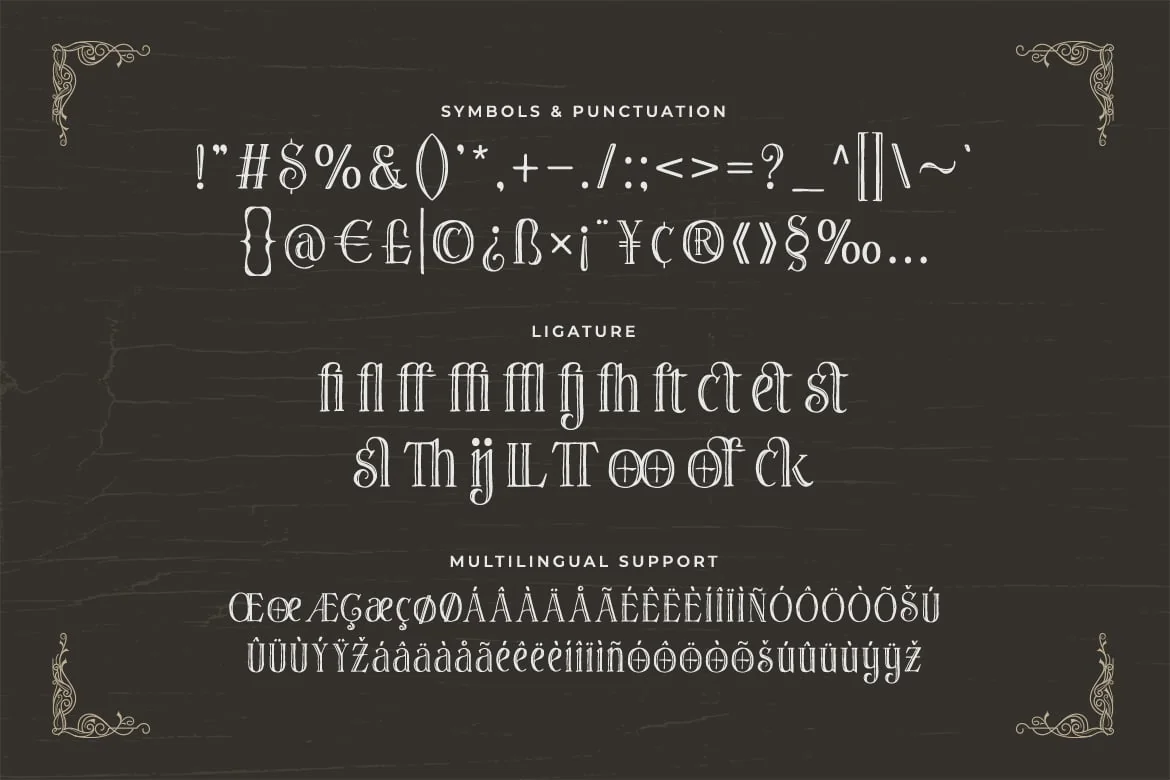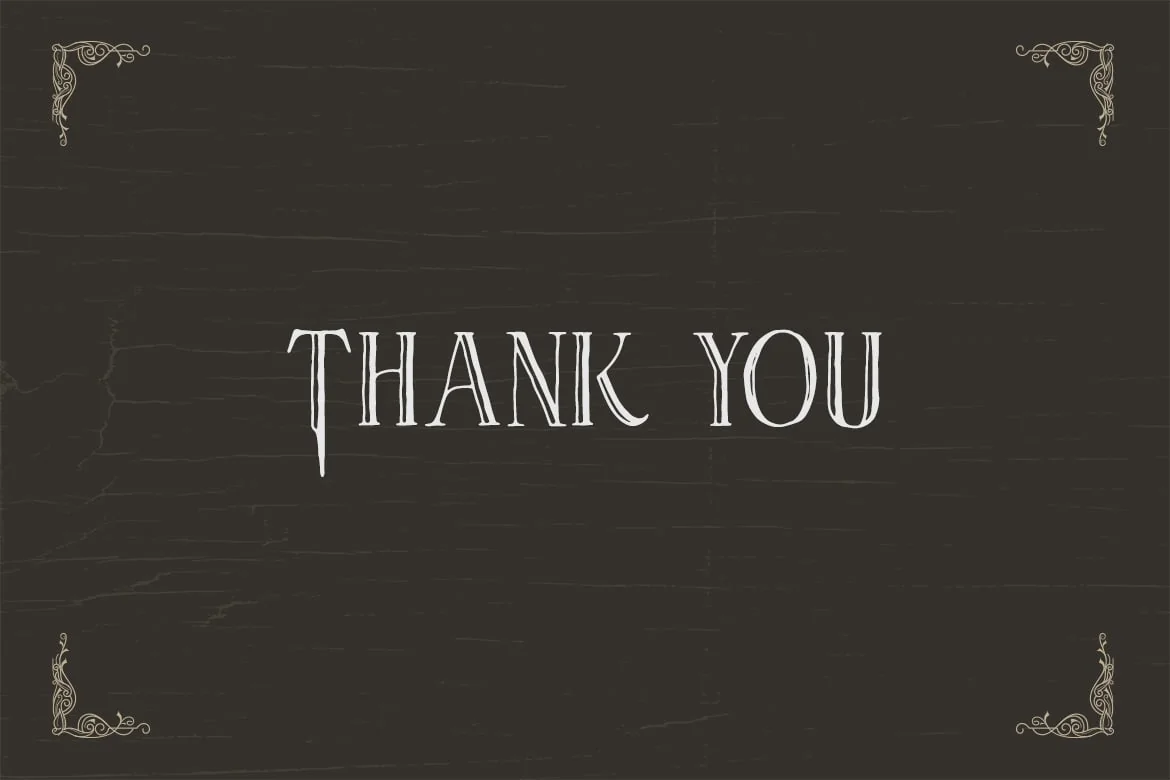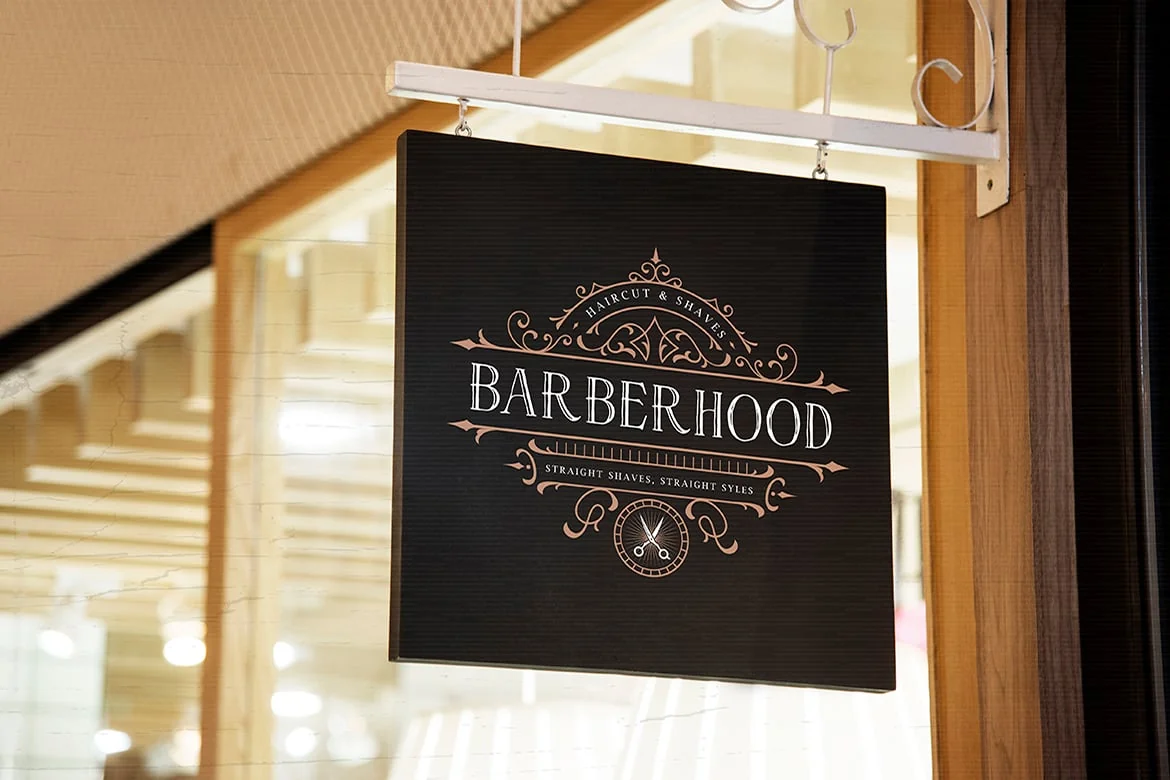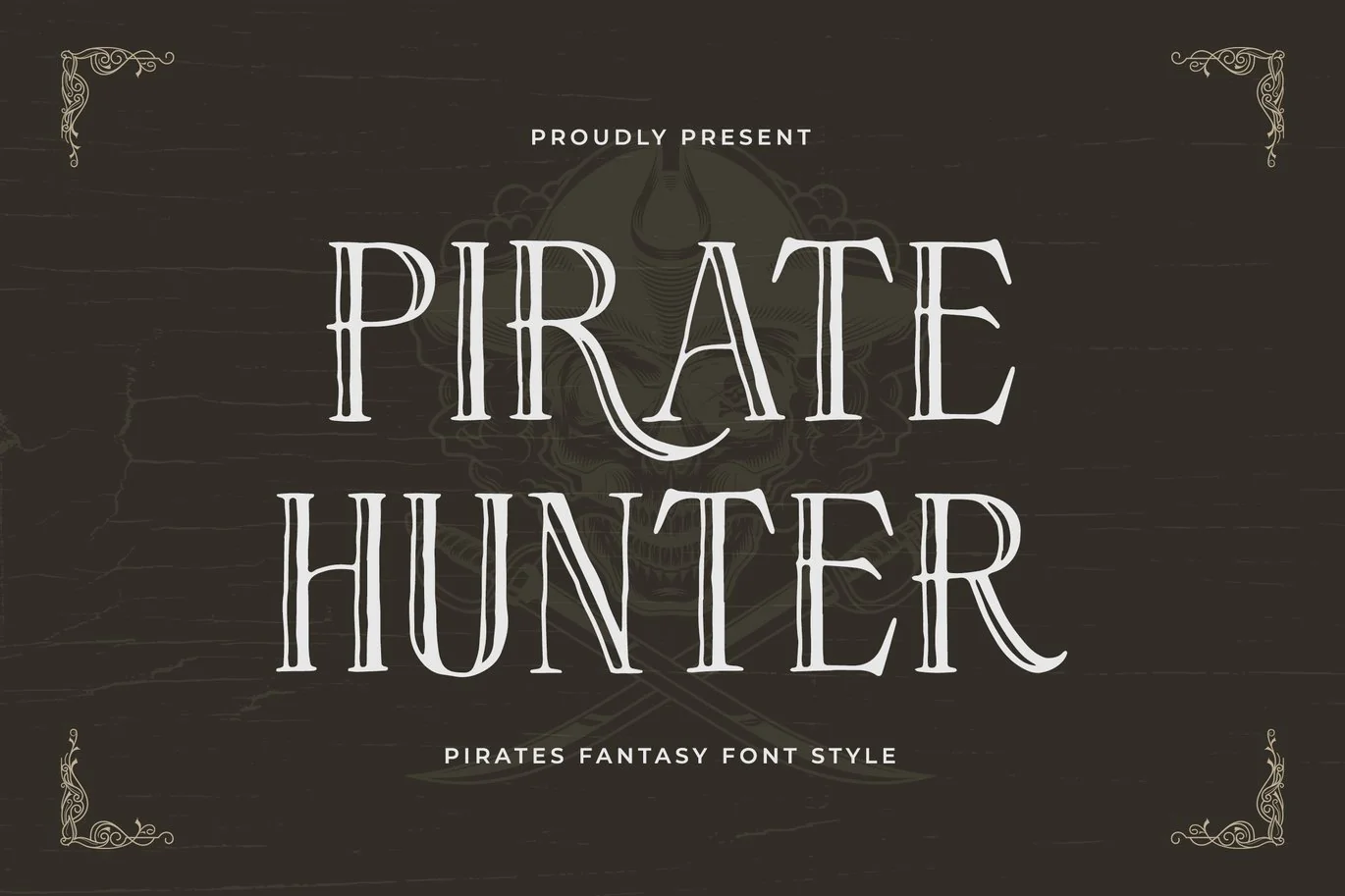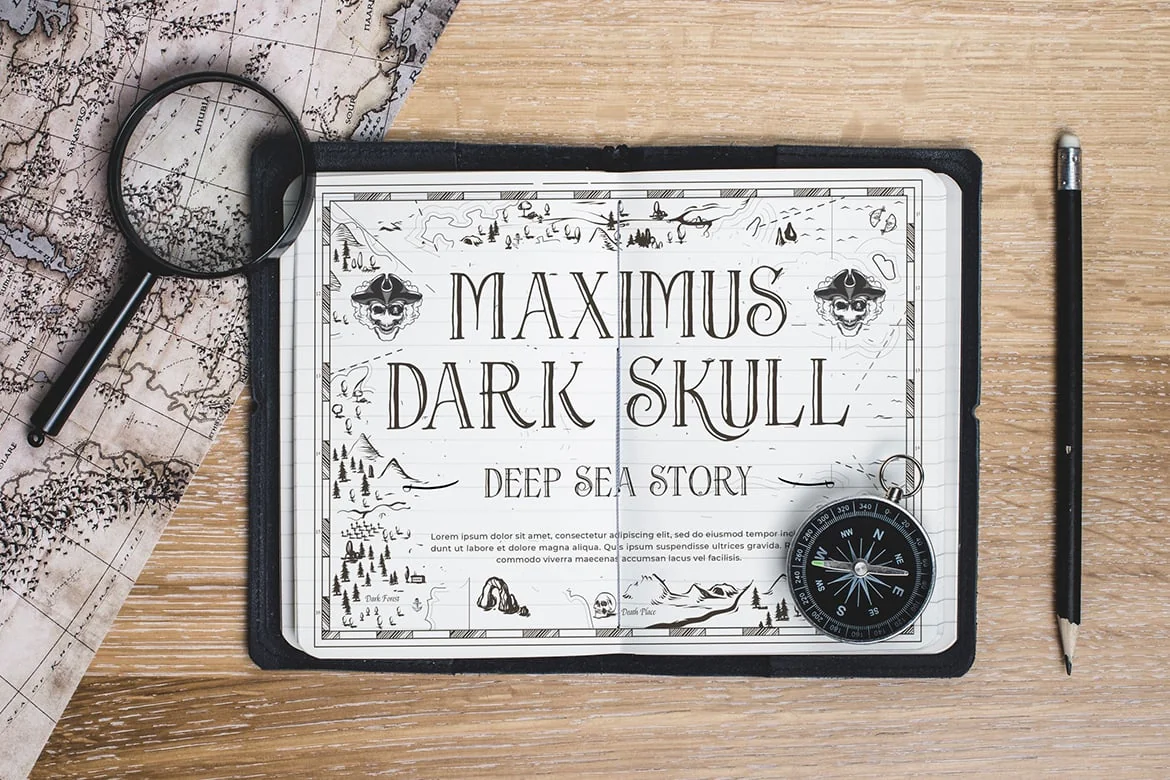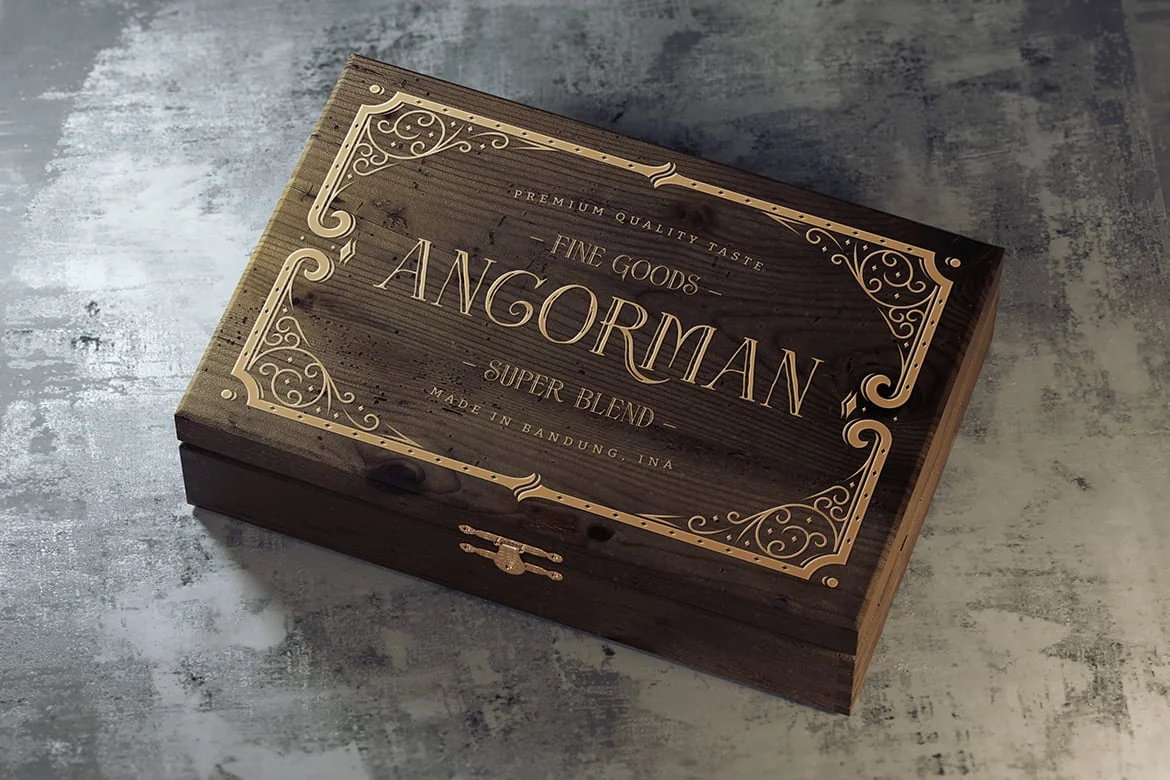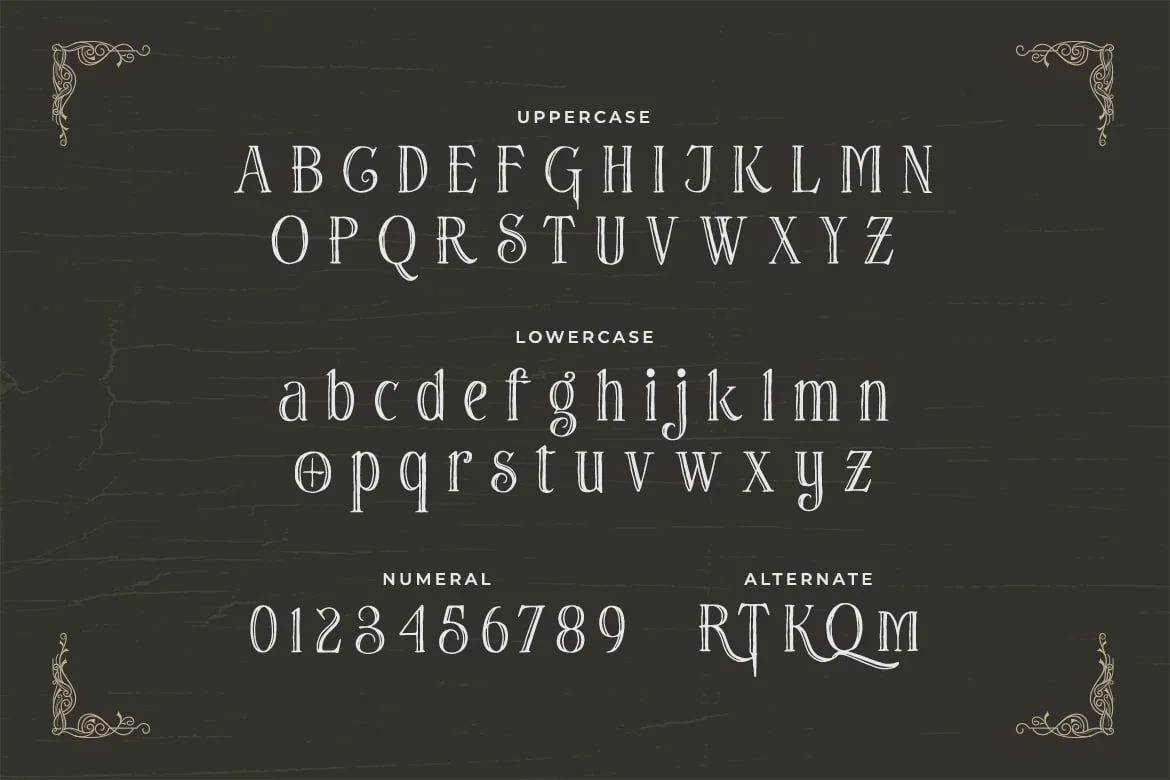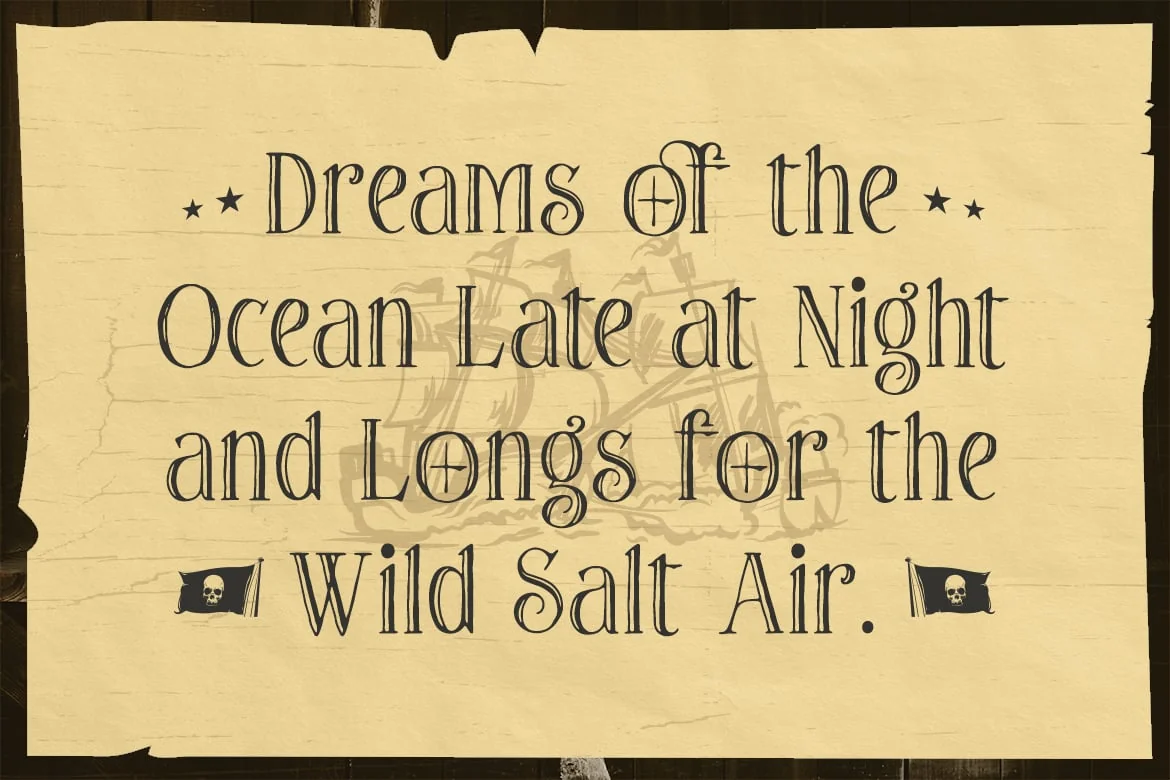
Pirate Hunter – Pirates Fantasy Font Style
Pirate Hunter is a pirate fantasy font that will immediately take you into adventure vibes.
This font will be the ideal choice for any movie, game, and pirate-themed design you wish to develop